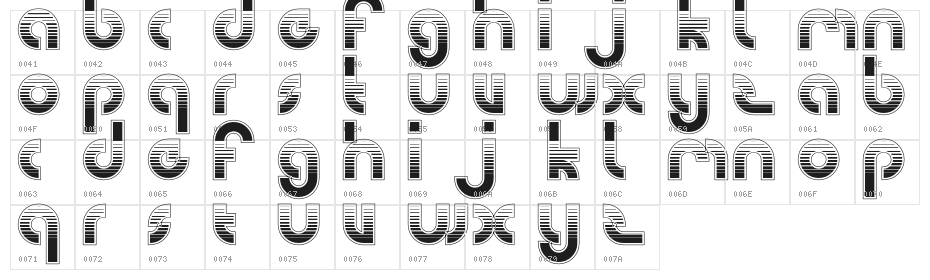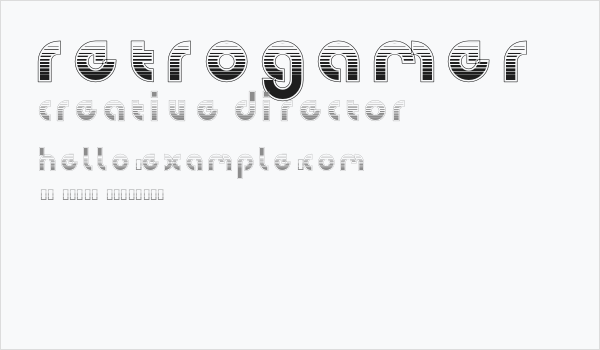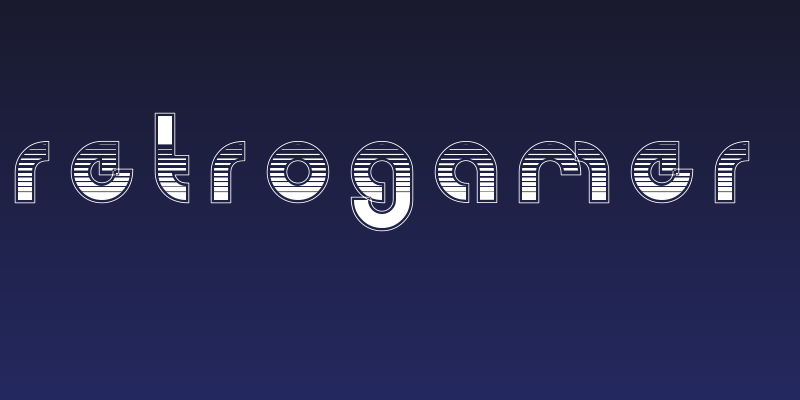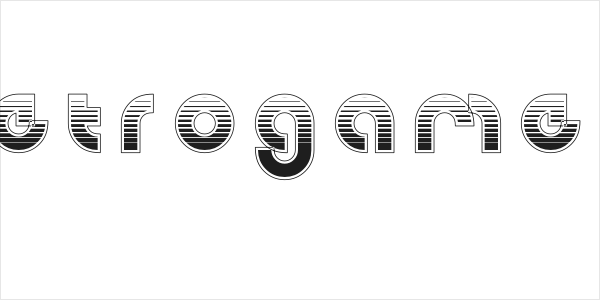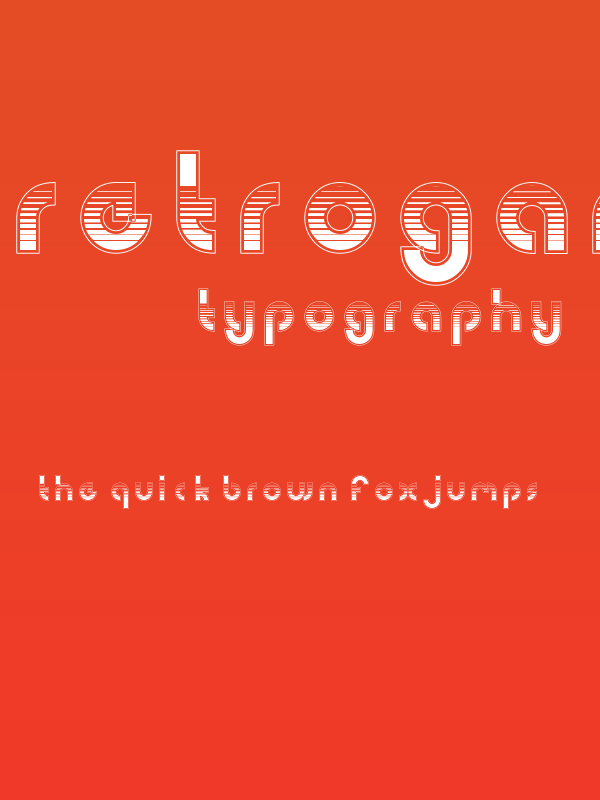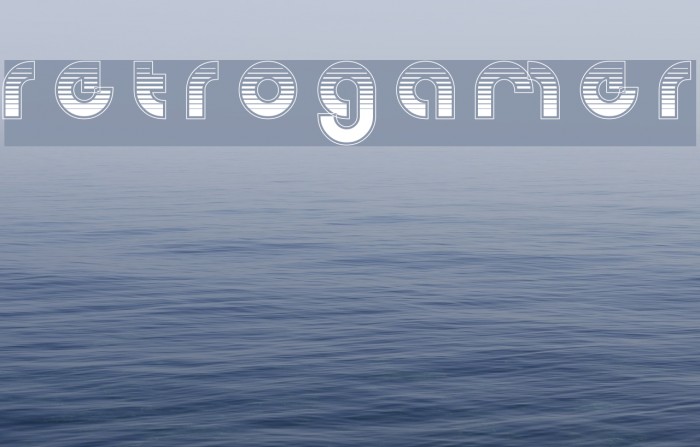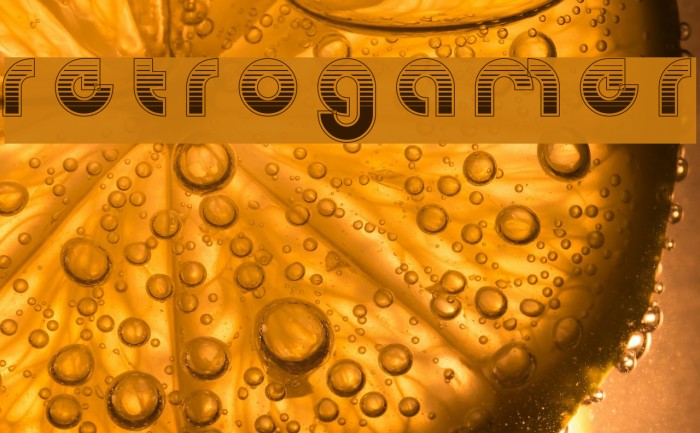
RetroGamer Font
RetroGamer Description
This font features a bold, retro-inspired design with a distinct striped pattern running through each character. The letters are rounded with a geometric structure, giving them a playful yet structured appearance. The uppercase and lowercase letters maintain a consistent style, with the stripes adding a sense of movement and depth. The numbers and special characters follow the same design principles, ensuring a cohesive look across all glyphs. This font is ideal for projects that aim to evoke a sense of nostalgia or a vintage gaming aesthetic.
| Proposed Projects | Perfect for retro-themed posters, video game graphics, vintage branding, and nostalgic merchandise. |